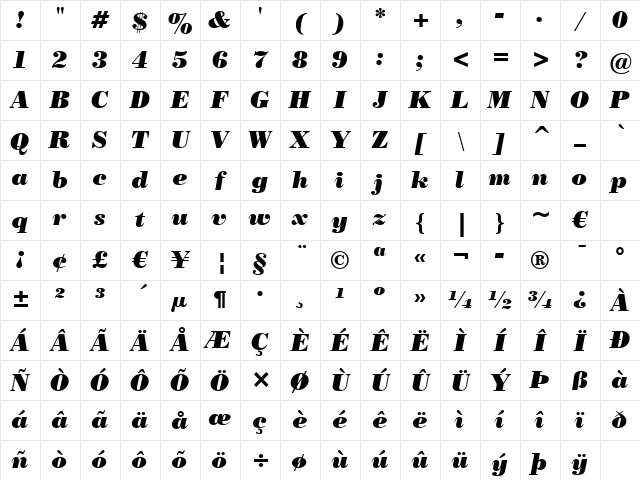
Complete PosterBodoni It BT Italic glyph index. Displaying only characters natively supported by PosterBodoni It BT Italic font.
PosterBodoni It BT is a composed and adaptable typeface that performs quietly and consistently across a wide range of design contexts. The slanted form adds forward momentum and visual energy.